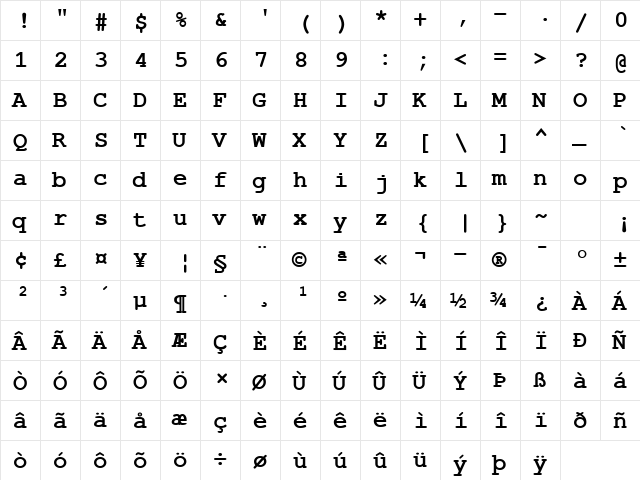
FreeMono Bold
Design Context for FreeMono Typeface
FreeMono brings the precise, column-aligned rhythm of monospaced typography to designs that value technical clarity and systematic order. Its bold stroke weight gives it real presence on the page.
Pro Tip: Use FreeMono with slightly increased line-height for extended reading — fixed-width spacing can feel dense in longer passages without extra breathing room.